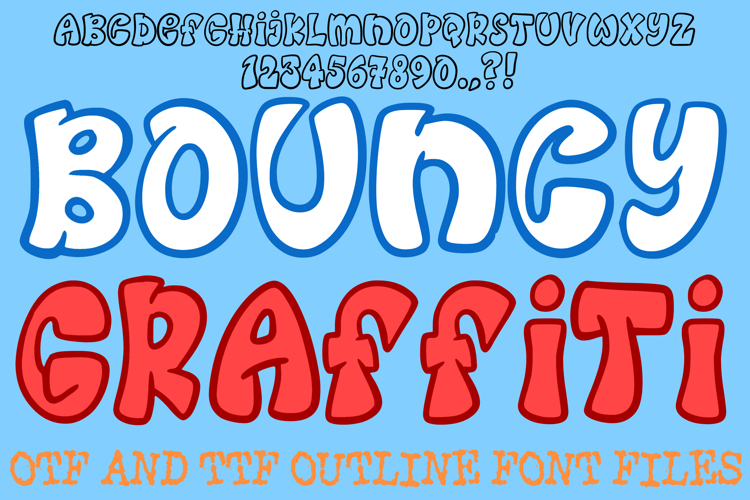
Bouncy Graffiti Font Hand Drawn Cartoon Comic Lettering ABC
The Bouncy Graffiti Font is a high-energy display typeface that brings the rhythm and flow of the streets to your creative projects. Featuring bold, interlocking silhouettes and iconic "over-under" interlaced details, this design captures the classic 90s graffiti "throw-up" style. It is the ultimate choice for urban streetwear branding, skate shop logos, vibrant vinyl stickers, and edgy social media headlines.
Each character is meticulously hand-drawn with playful flourishes and varying weights, giving every word a custom-painted, mural-like personality. Whether you are a digital artist designing high-impact thumbnails or a crafter creating custom apparel, the Bouncy Graffiti Font delivers a professional, artisan-crafted aesthetic that is both nostalgic and trend-forward.
Interlocking "Wildstyle" Silhouettes: The letters feature clever overlapping and "tucked" details for a true street-art feel.
Bold Outlined Construction: Thick borders and rounded edges make your text jump off the page and remain readable even against busy backgrounds.